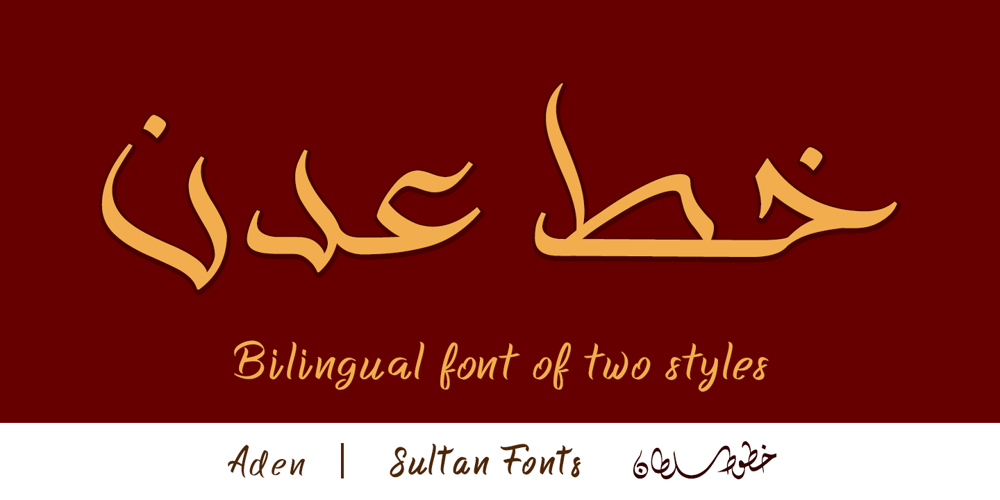
Aden Font Family was designed by Sultan Maqtari and published by Sultan Fonts. Aden contains 2 styles and family package options. Aden is An Arabic typeface for desktop applications.Aden is Modern typeface style. The font comes in two styles: normal and bold.The design is open, calligraphic, and very dynamic. This makes it suitable for large display sizes, especially in the area of advertising, while still functioning well as a text face. The font includes a matching Latin design and support for Arabic. It also includes proportional and tabular numerals for the supported languages. Aden typeface comes with many opentype features.